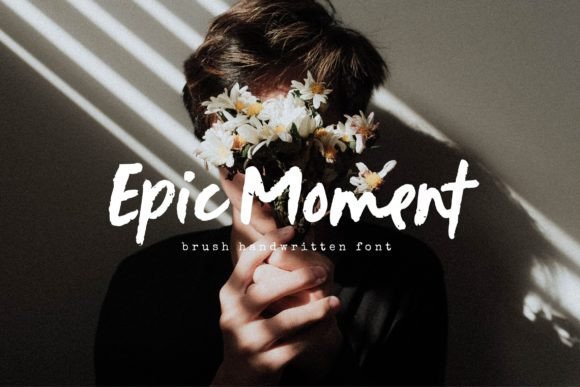
Introduction to Epic Moment Font
Epic Moment is a classy and modern handwritten font.
This versatile font has a wide spectrum of applications ranging from greeting cards to headlines and is guaranteed to add a romantic feel to your next project .
Key Features of Epic Moment Font